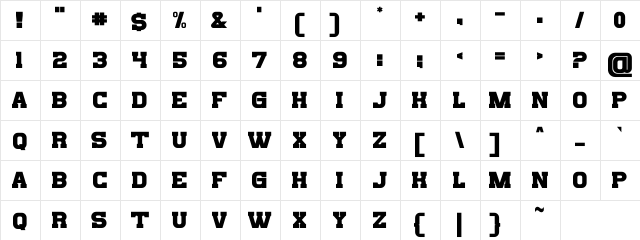
Bills Mafia Regular
Design Context for Bills Mafia Typeface
Bills Mafia takes a measured approach to typography — its balanced proportions and neutral character make it a reliable workhorse for both digital and print work.